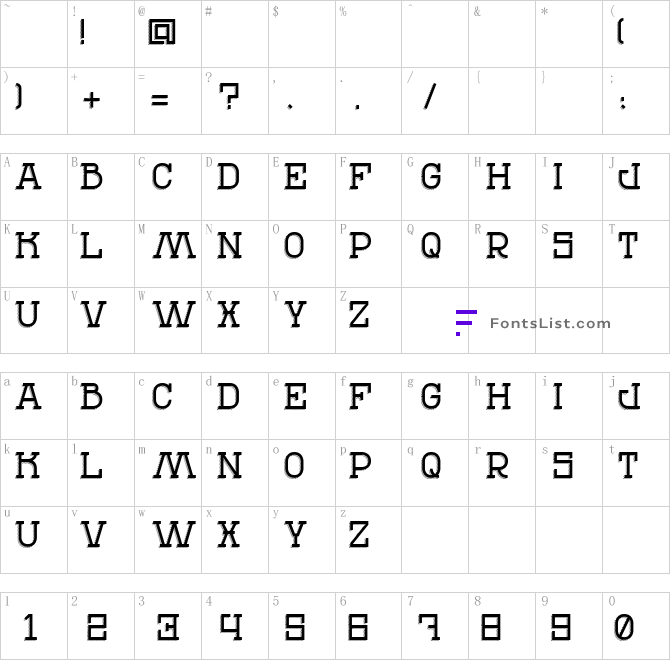
- Font Name:Alt Ren Retro
Alt-Ren-Retro.ttf is a very beautiful artistic font, Alt-Ren-Retro.ttf is widely used in the design and printing of various books and pictures,Alt-Ren-Retro.ttf has a strong visual impact,Alt-Ren-Retro.ttf is a commonly used font in newspapers, magazines and books, and is used in posters, e-commerce Poster design, store design, logo design, font design and other fields.Alt-Ren-Retro.